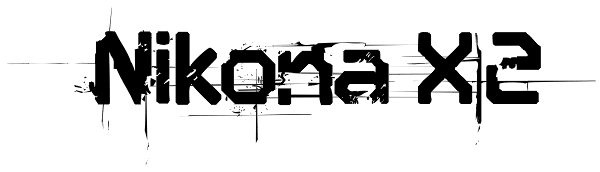
Nikona
Nikona is a typographic family composed of eight fonts. The leading thread that typifies this family is its “mutant spirit”; a result of my personal and typographic interpretation of the three robotic laws created by Asimov in 1940, and reflected...